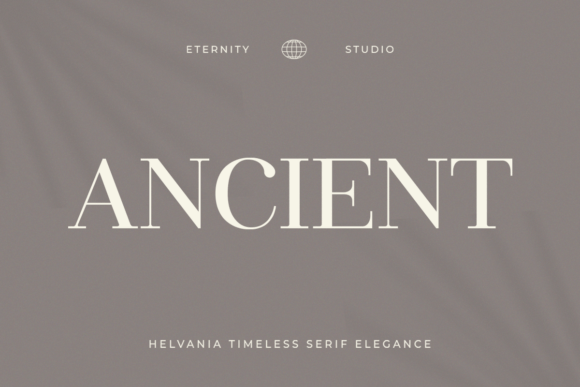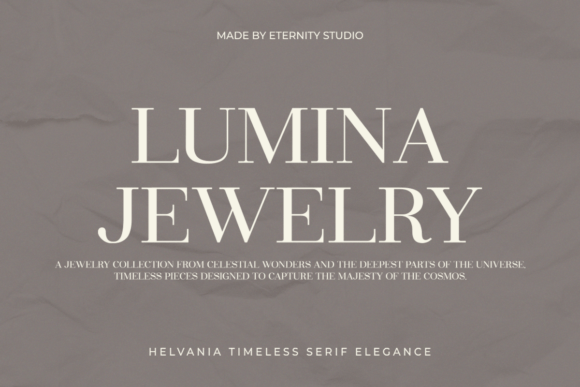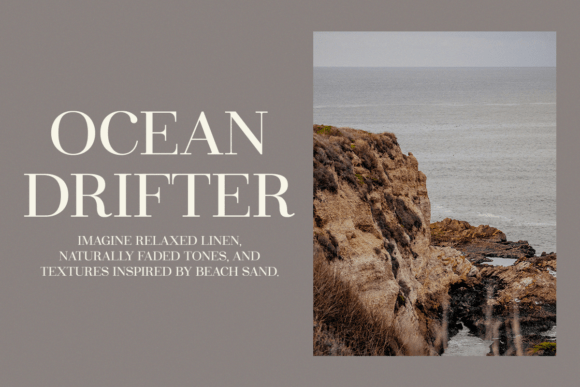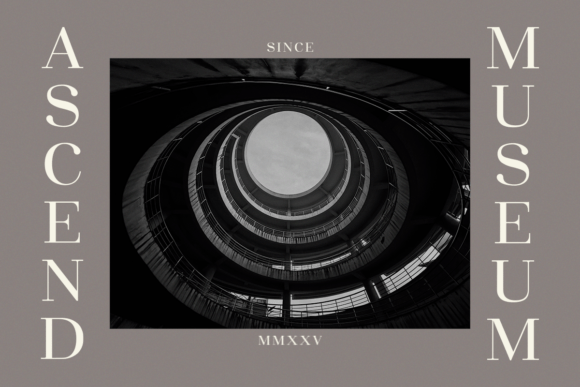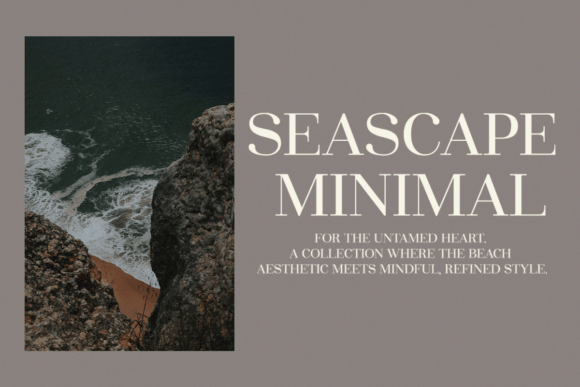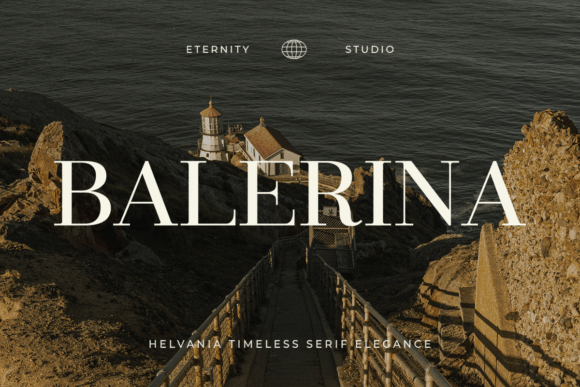
Introduction to Helvania Font
Helvania – Timeless Serif Display Elegance Helvania is a refined serif typeface crafted to embody timeless beauty and effortless sophistication.
Featuring classic letterforms with modern, elegant detailing, this font delivers a graceful balance between tradition and contemporary style Each character is designed with smooth curves, sharp serifs, and harmonious proportions, making Helvania a truly versatile typeface for high-end design work.
Key Features of Helvania Font
Why Choose Helvania Font?
Helvania Font offers exceptional quality and versatility, making it a valuable addition to your design toolkit. Whether you’re creating for personal projects or commercial use, Helvania Font delivers professional results.